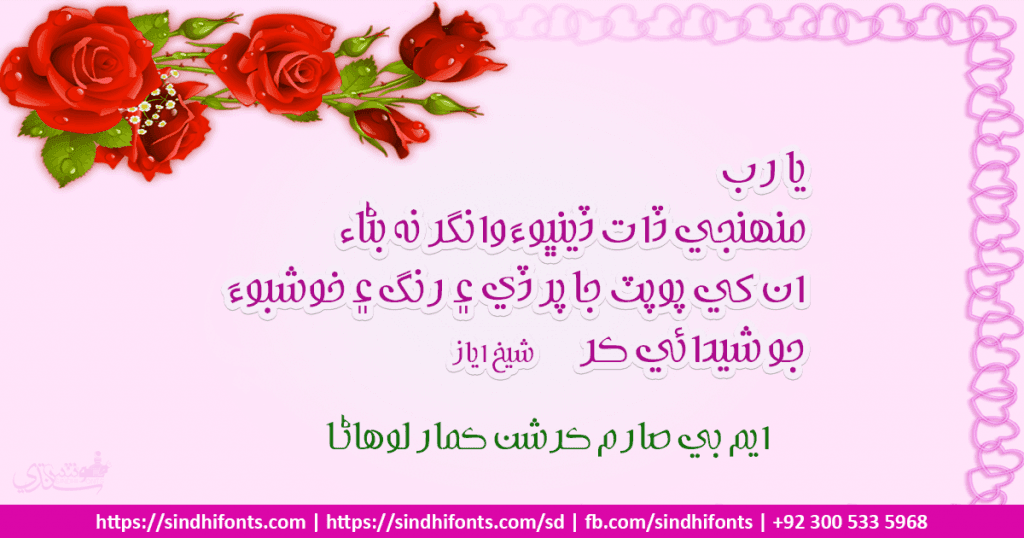
MB Sarem Kirshan Kumar Lohana
MB Sarem Kirshan Kumar Lohana is a Sindhi Font for your designs particularly for the headings. It confirms the latest Unicode standards also. MB Sarem Kirshan Kumar Lohana is free of charge to download and install on your computer. If you’d wish to use MB Sarem Kirshan Kumar Lohana font for commercial purposes please contact designer to get permission. If MB Sarem Kirshan Kumar Lohana is published under an ingenious Commons license, you’ll see more information about the permitted uses it within the license info. You’ll also see license info for this Sindhi font under the font file properties or inside the download folder. This font comes with the multilingual supports like Sindhi, Urdu, Arabic, Persian and Saraiki languages.